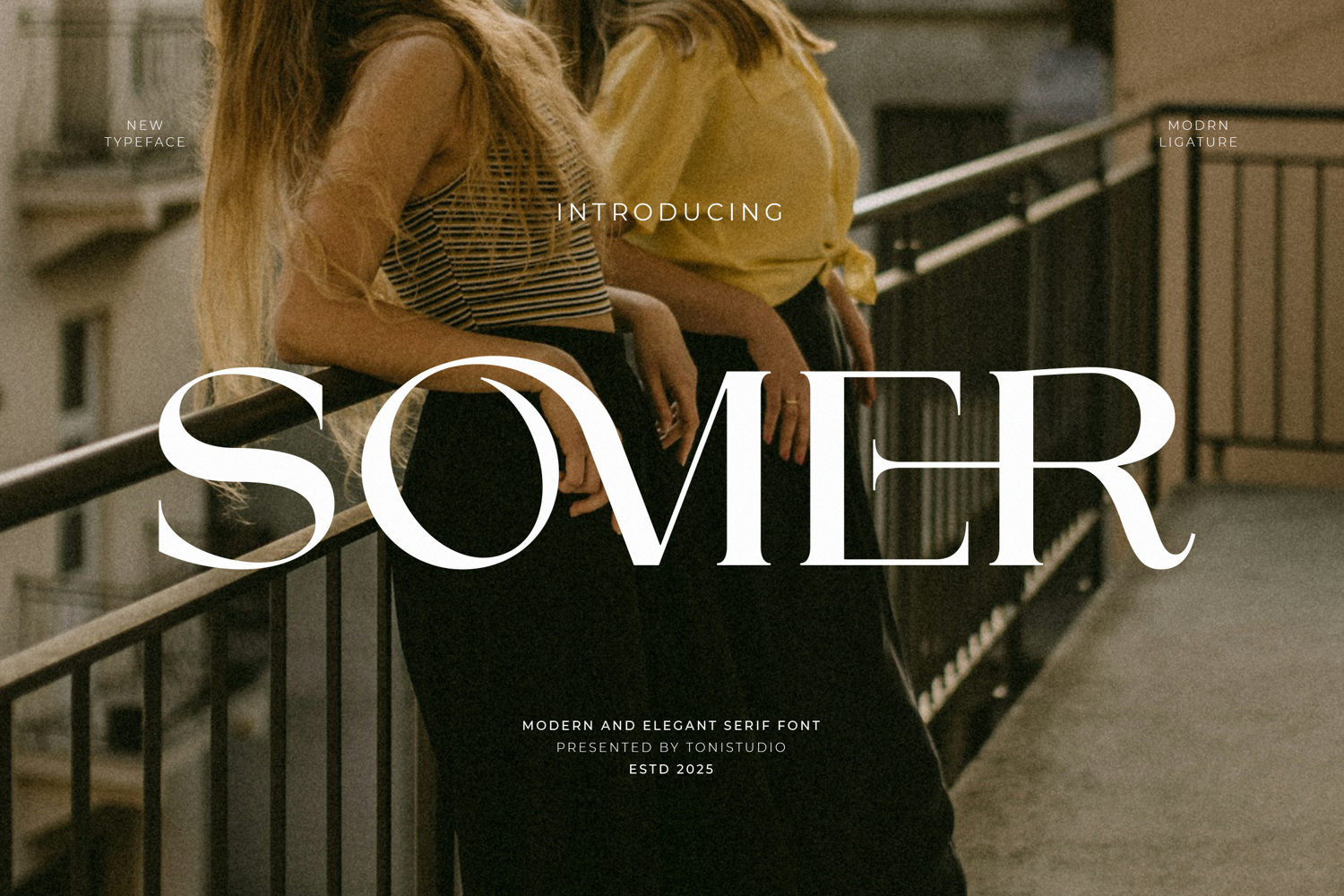
SOMER | modern and elegant serif
SOMER is a graceful and modern serif, with subtle details and bold-thin contrasts that reflect the moment. Each curve of its letters is designed to convey a sophisticated, feminine, and professional feel—making it a perfect choice for logos, luxury branding, and designs that want to appear sophisticated.